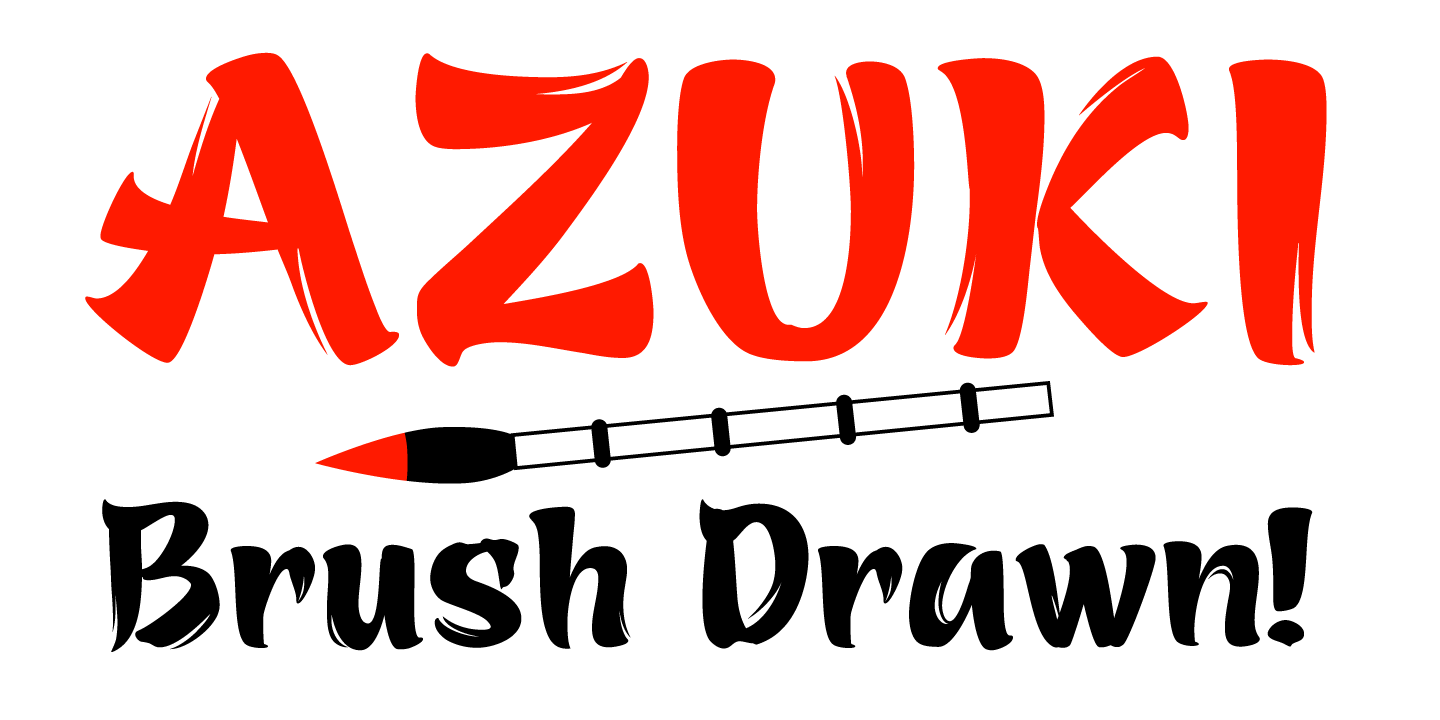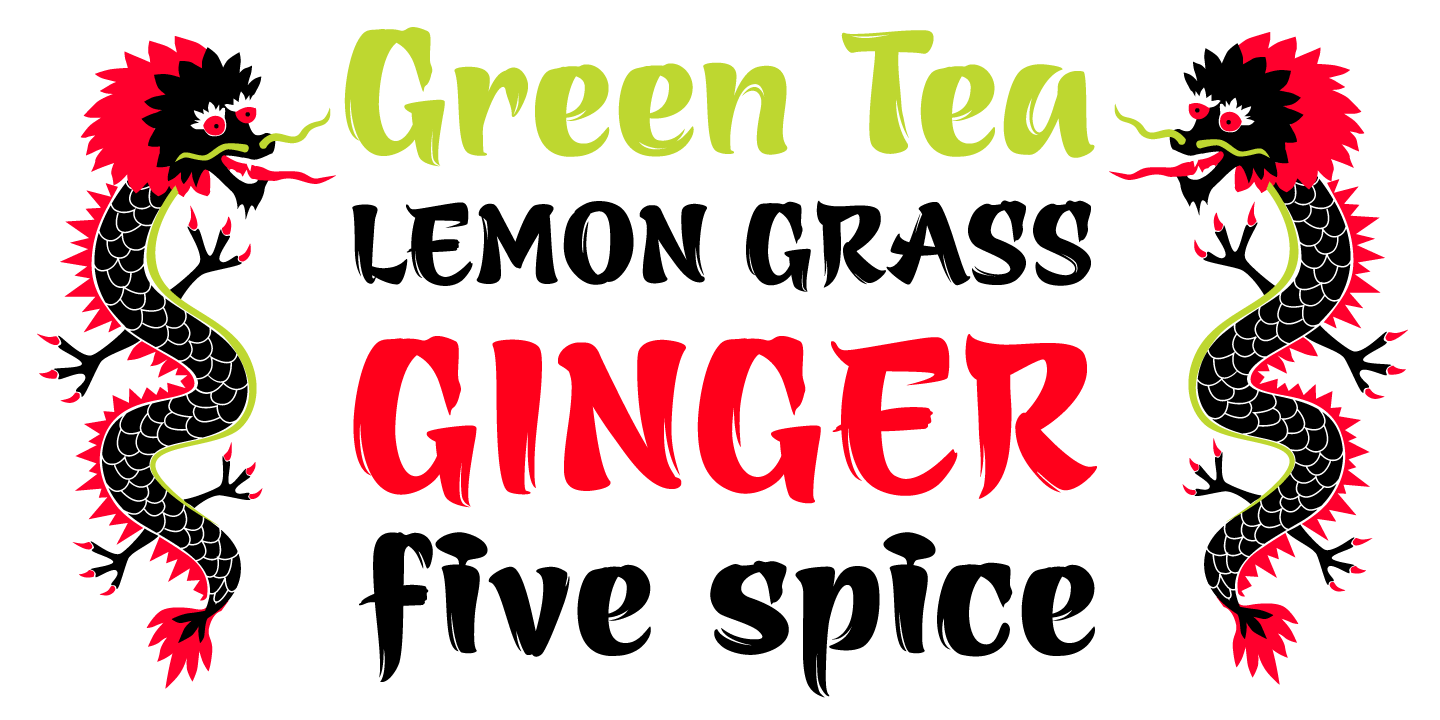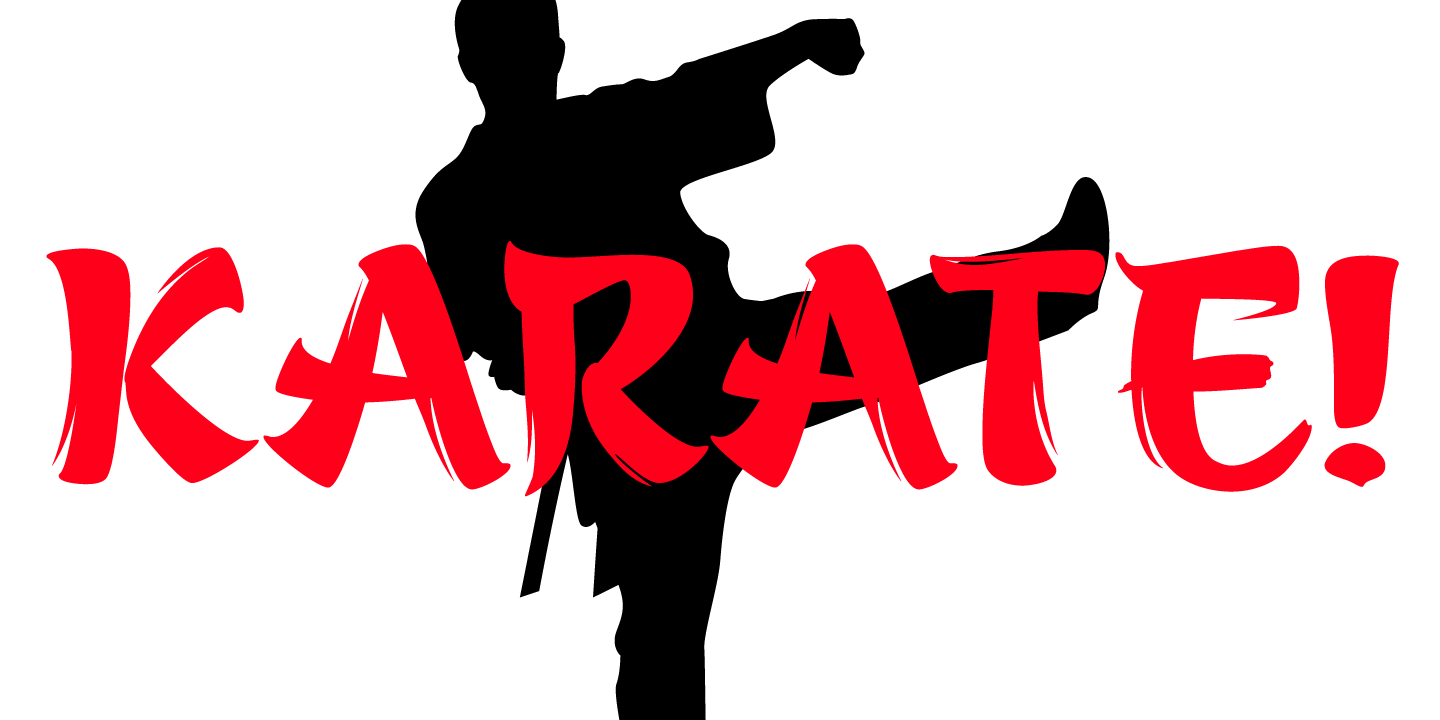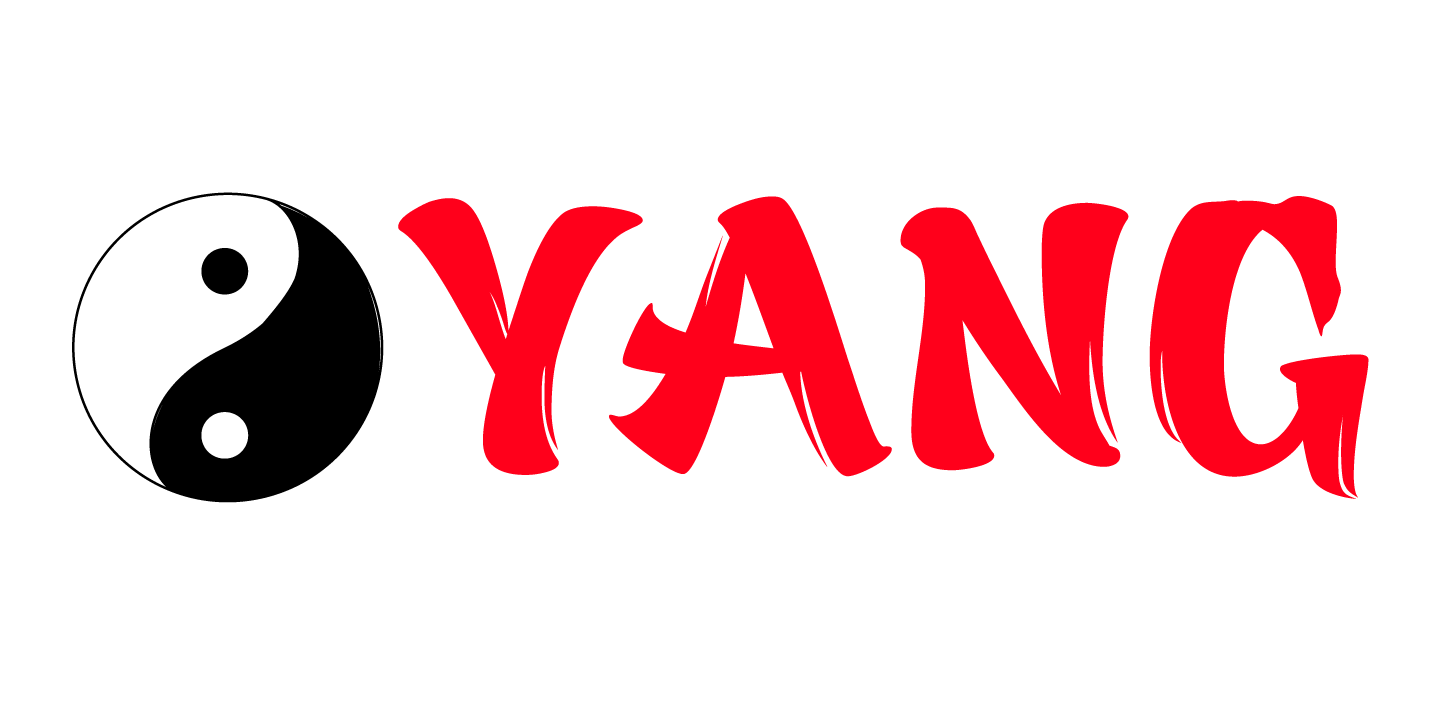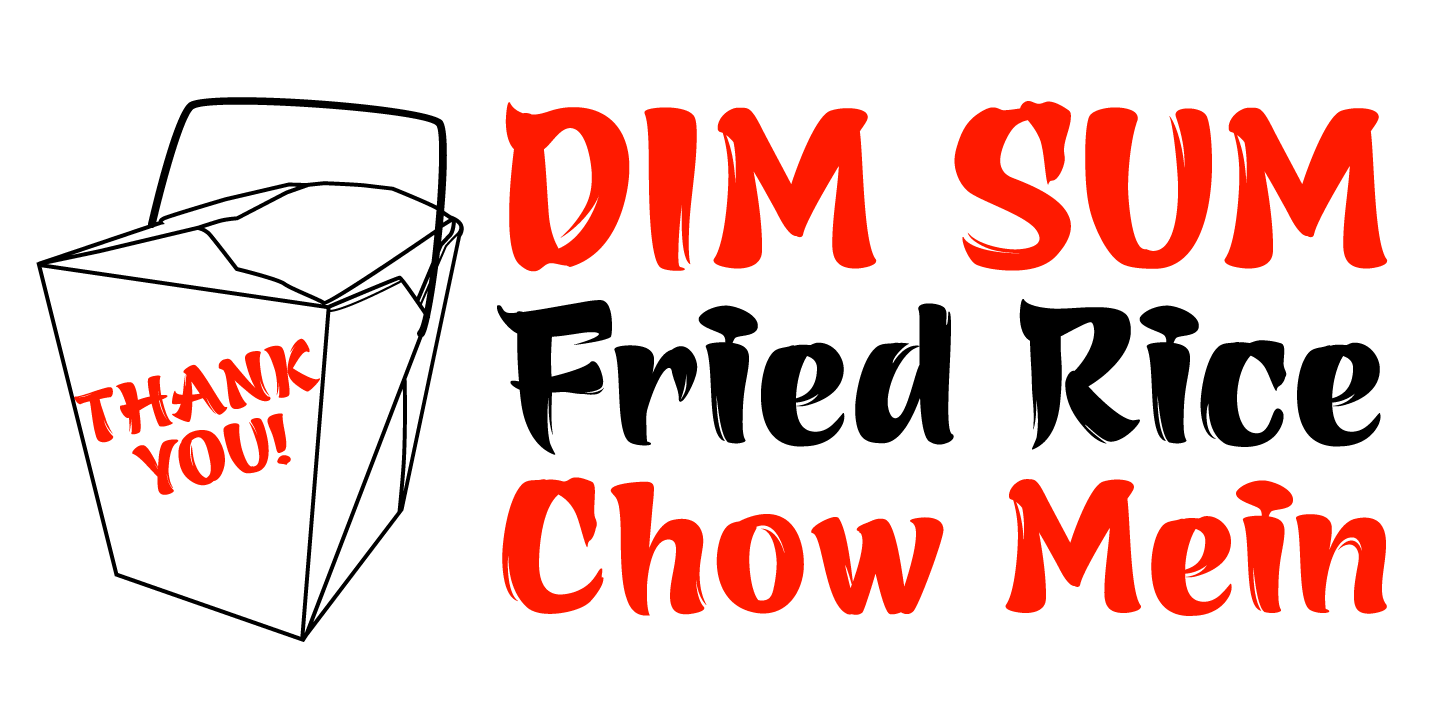
Azuki
Azuki was first drawn with a Sumi brush to simulate chinese calligraphy. A lot of work went into creating not just a casual and loose brush drawn font but also one that was balanced and worked well in any letter combination. I was really intrigued by how the hairs would split on the sumi brush and I made sure to include that on every letter.
The opentype version (packaged free with the TT/PS Mac or Win versions) has many contextual alternates that creates variation when two identical letters are typed together or you can choose the alternates manually.
This is a really fun font and I had a ton of fun making it, enjoy!